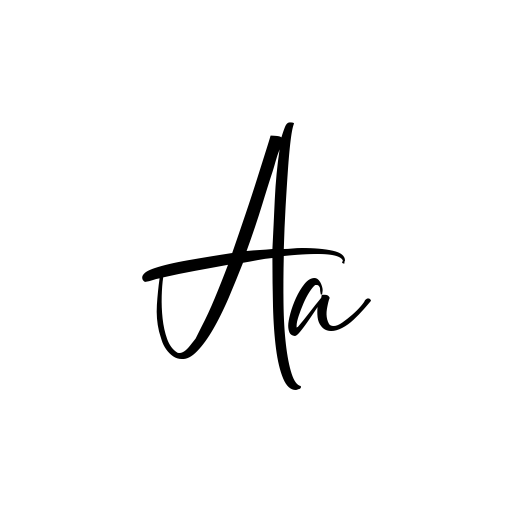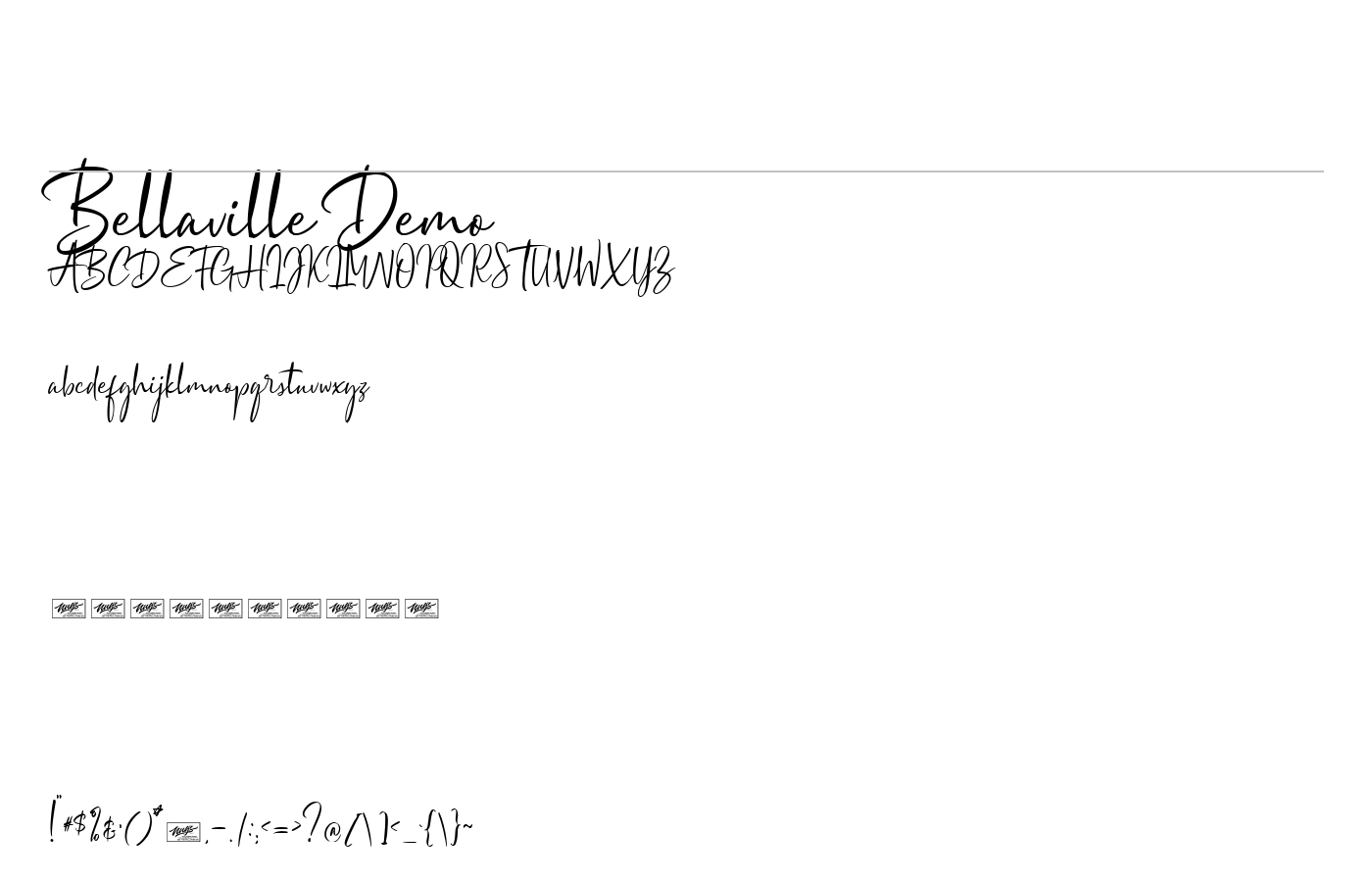
Bellaville Demo is an elegant, flowing script font with a handwritten feel, featuring thin, delicate strokes and graceful curves. Its tall, narrow letterforms and smooth connections create a sophisticated and personal style, perfect for invitations, branding, and designs that need a touch of romance and refinement. This font works well in projects that want to convey creativity and elegance in a soft, approachable way.
Bellaville Demo Font
About Bellaville Demo Font
| Font family | Bellaville Demo Font |
| Designer | Andrie Nugrie |